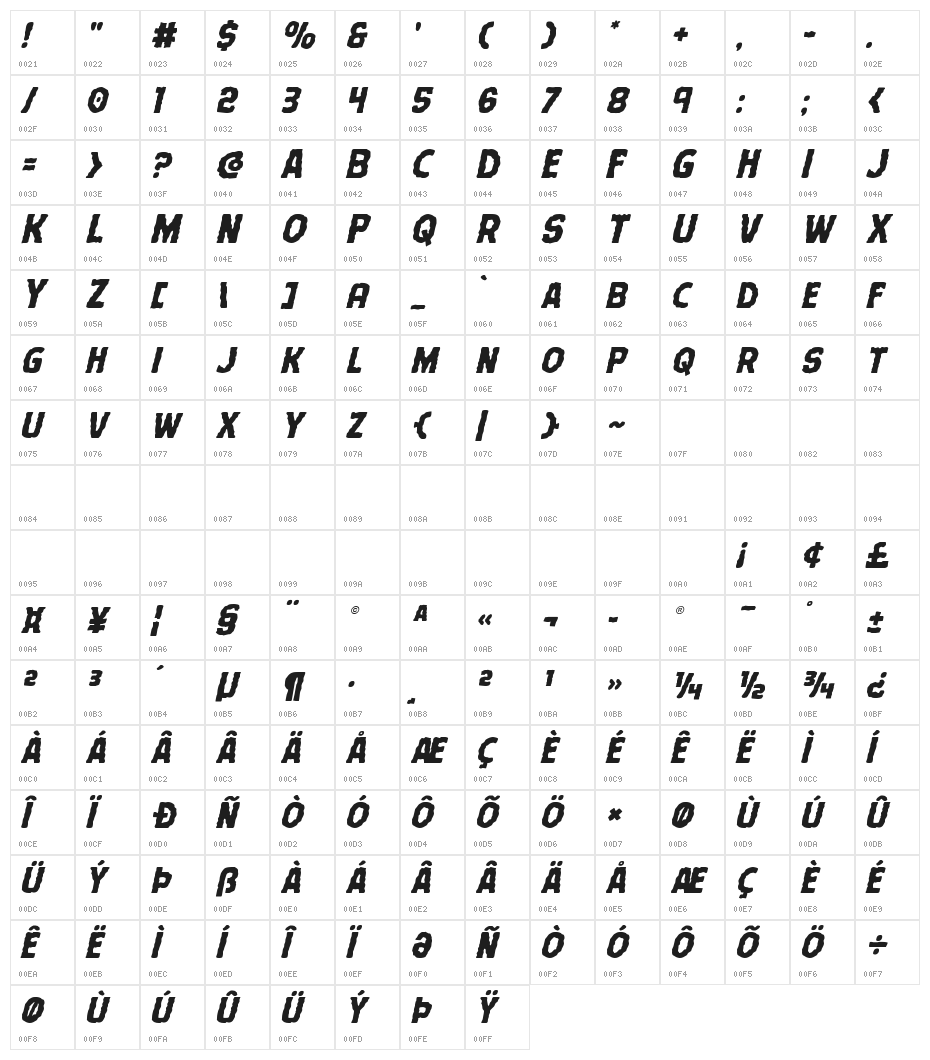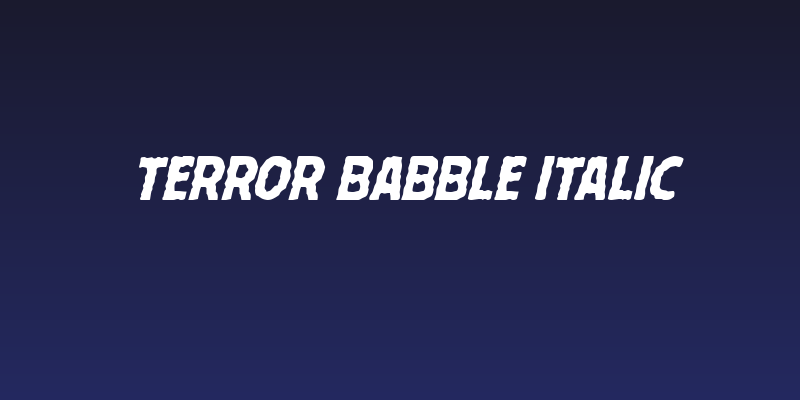
Terror Babble Italic Font
Terror Babble Italic Description
This font features a bold and dynamic style with a distinct italic slant, giving it an energetic and slightly chaotic appearance. The characters are thick and robust, with irregular edges that create a sense of movement and intensity. The uppercase and lowercase letters maintain a consistent style, enhancing the font's cohesive look. The numbers and special characters are equally bold, ensuring they stand out in any design. This font's unique style makes it ideal for projects that require a strong visual impact.
| Proposed Projects | Ideal for horror-themed posters, edgy branding, video game titles, and Halloween event flyers. |